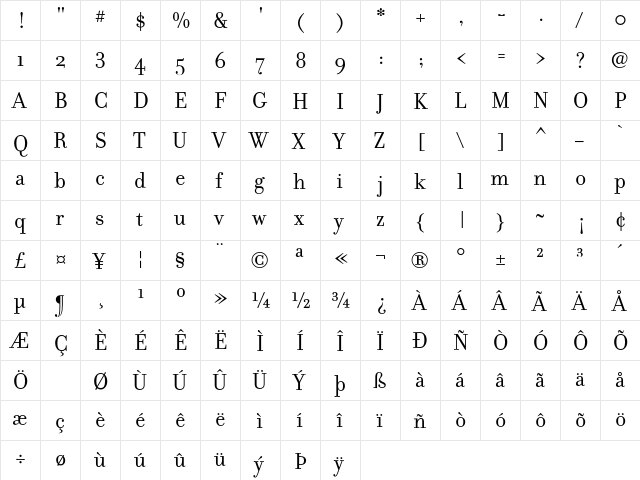
FilosofiaRegular Font Preview
FilosofiaRegular Regular
FilosofiaRegular Font Details
Design Context for FilosofiaRegular Typeface
FilosofiaRegular is a composed and adaptable typeface that performs quietly and consistently across a wide range of design contexts.
Pro Tip: Pair FilosofiaRegular with a font of contrasting weight or personality to build a more expressive typographic hierarchy.